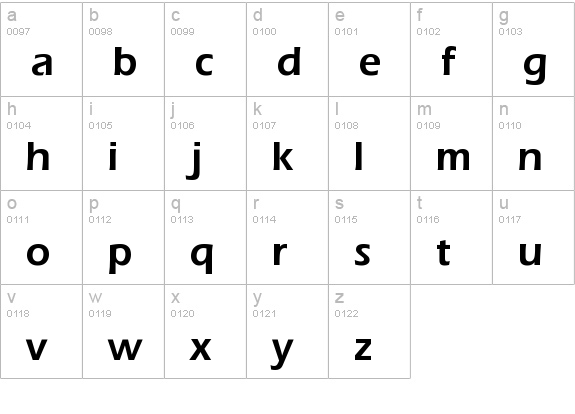
Speedo SSi Semi Bold is a strong, high-contrast variant in the Speedo typeface family \xE2\x80\x94 well suited to headlines, attention-grabbing titles, and strong calls-to-action.
Introducing Speedo SSi Semi Bold, a font that exudes power, confidence, and unmatched style. Designed with a perfect balance between sleekness and solidity, this font is the epitome of modernity and sophistication. Its semi-bold weight adds an extra touch of boldness, making it ideal for capturing attention and creating memorable designs. With its clean lines and sharp edges, Speedo SSi Semi Bold is perfect for a wide range of applications, from advertising and branding to editorial design and website headers. This versatile font is equally adept at conveying both professionalism and creativity, making it a must-have for designers, marketers, and creatives alike. But what sets Speedo SSi Semi Bold apart from the rest? It's the fact that it is freely available to download at FontsMarket.com. Yes, you read that right! This high-quality font can be yours without any cost, allowing you to enhance your projects without breaking the bank. FontsMarket.com is renowned for its vast collection of premium fonts, and Speedo SSi Semi Bold is no exception. So, whether you're working on a logo for a cutting-edge tech startup, designing a magazine cover that demands attention, or creating a sleek website that leaves a lasting impression, Speedo SSi Semi Bold is the perfect choice. Download this font now at FontsMarket.com and unleash the power of typography in your designs.